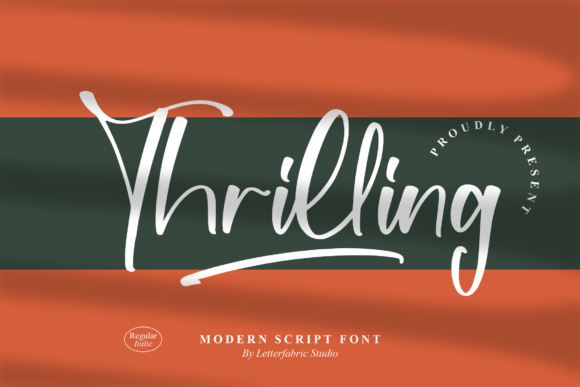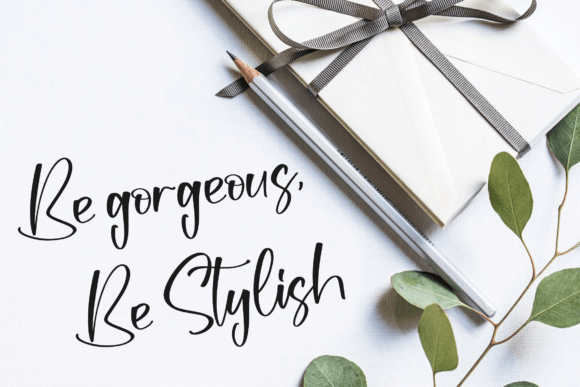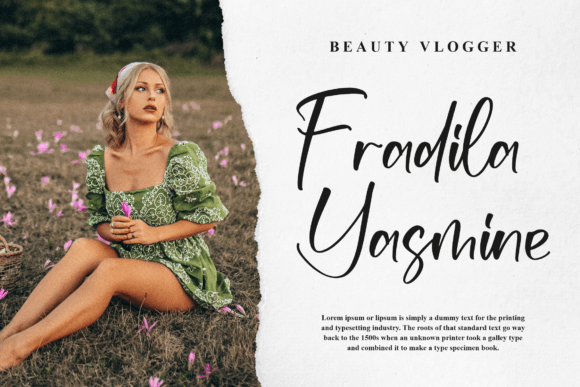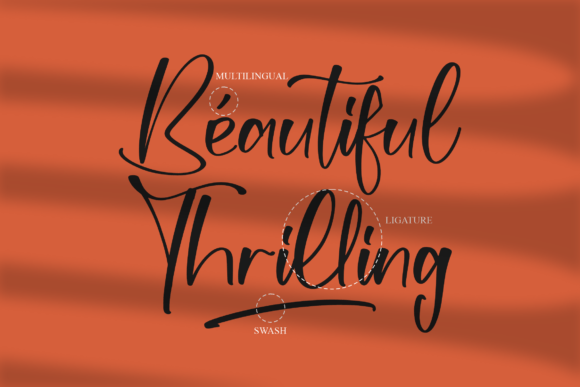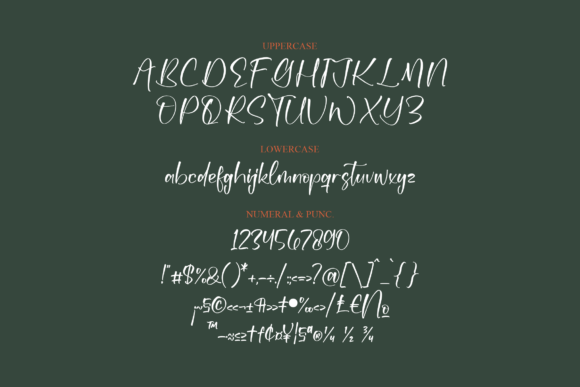
About Thrilling Font
Thrilling is a contemporary handwritten font that brings a modern and stylish touch to a variety of creative projects. With its versatile design, this font is well-suited for an array of applications, including logos, branding projects, homeware designs, product packaging, mugs, quotes, posters, shopping bags, t-shirts, book covers, name cards, invitation cards, greeting cards, labels, photography, watermarks, special events, and more.
The allure of Thrilling lies in its modern script style, making it an ideal choice for projects that require a beautiful and on-trend script font. Whether you’re developing a distinctive brand identity or adding a chic touch to your homeware designs, Thrilling infuses a sense of contemporary elegance into your creations.
Its adaptability makes Thrilling suitable for both digital and print media. From social media posts to book covers, the font seamlessly integrates into a variety of design contexts, maintaining readability and aesthetic appeal. Thrilling’s distinctive script taste enhances the visual impact of your projects, contributing to a cohesive and stylish design language.
For merchandise like mugs and t-shirts, Thrilling’s contemporary handwritten charm adds a personal and trendy touch. The font’s versatility extends to special events where it can be used in invitations, name cards, greeting cards, and more, ensuring a consistent and appealing visual theme.
In summary, Thrilling is more than just a font; it’s a design asset that adds a modern and beautiful script taste to your projects. Let Thrilling be the choice that brings a touch of contemporary elegance to your logos, branding, and a diverse range of creative works, elevating them with style and sophistication.